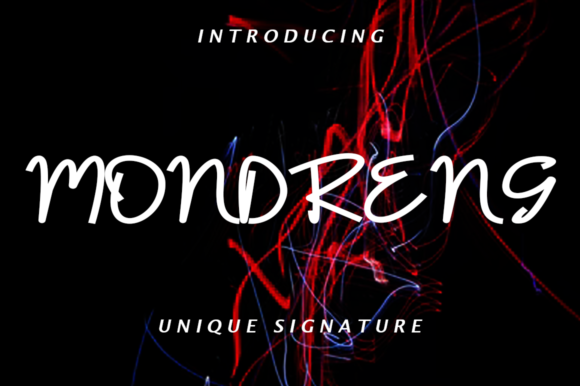
About Mondreng Font
Mondreng is a modern and authentic handwritten font. It is suitable for creative projects that require a casual vibe combined with an elegant feel. This font is PUA encoded, which means you can access all of the glyphs and swashes with ease!